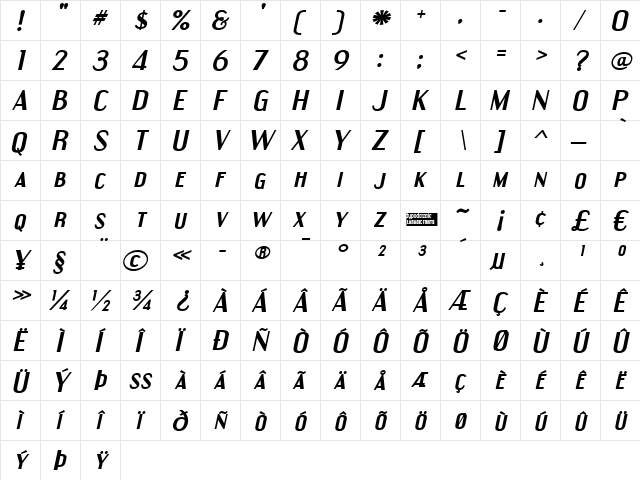
Engebrechtre Expanded Bold Italic Font Preview
Design Context for Engebrechtre Expanded Typeface
Engebrechtre Expanded is a composed and adaptable typeface that performs quietly and consistently across a wide range of design contexts. The dynamic lean of this cut emphasises speed and emphasis in any layout. The heavy weight commands attention and anchors typographic hierarchies.